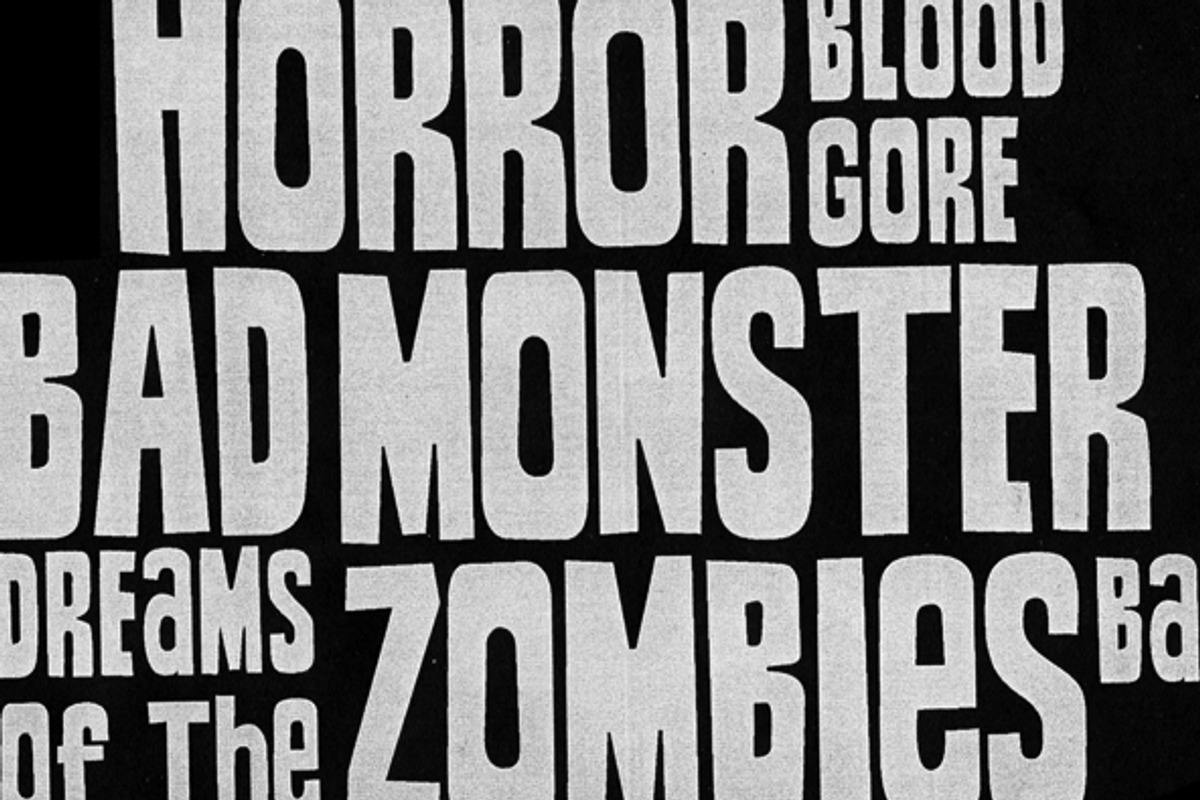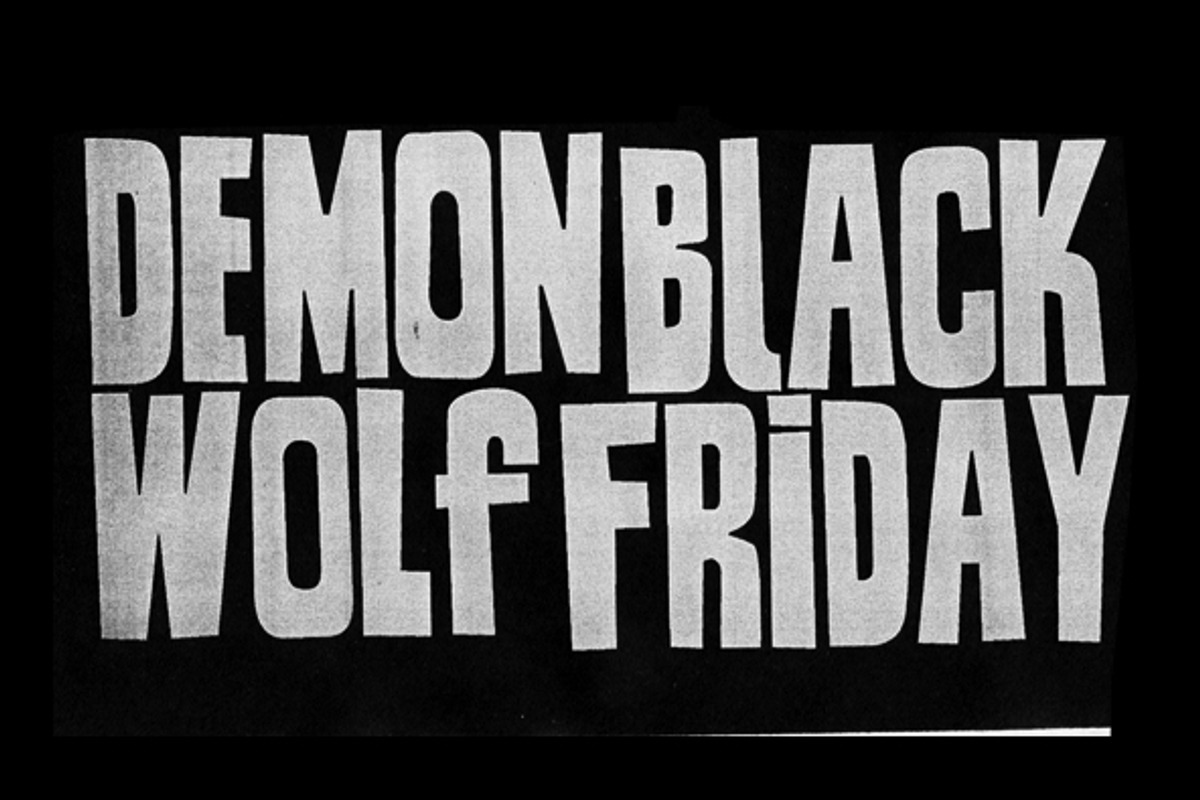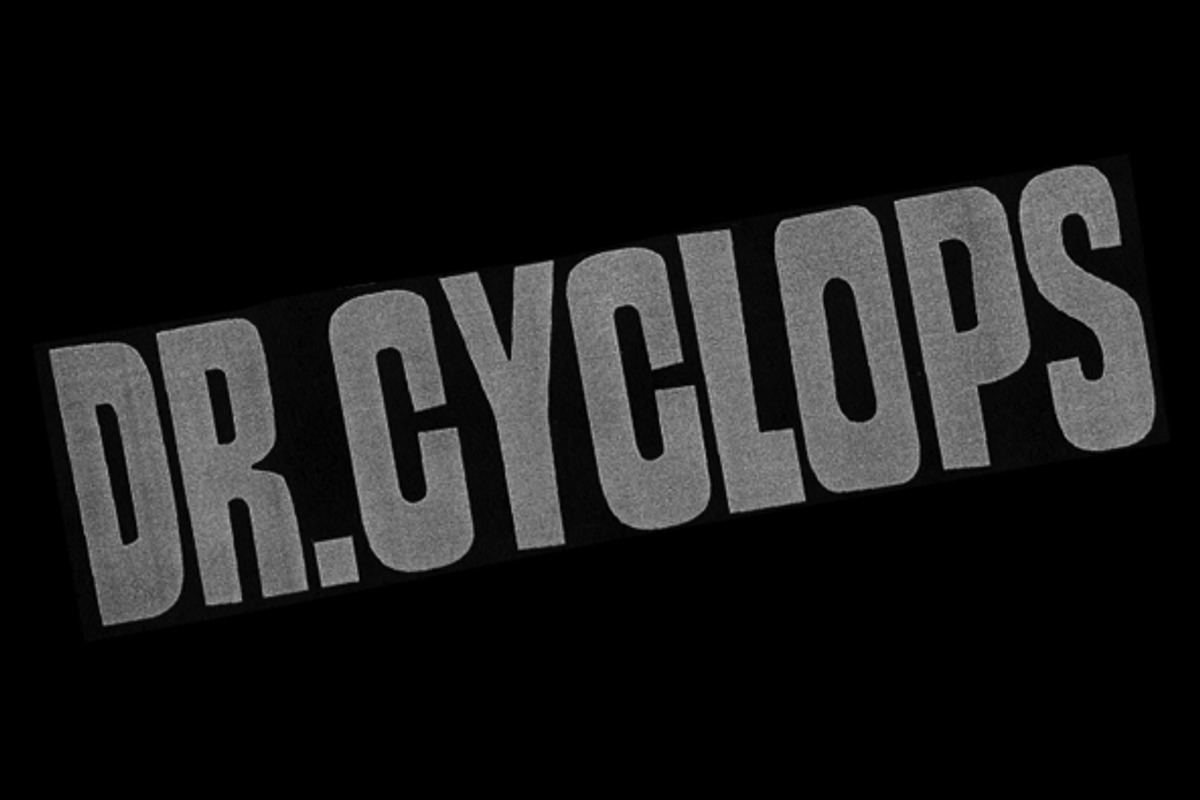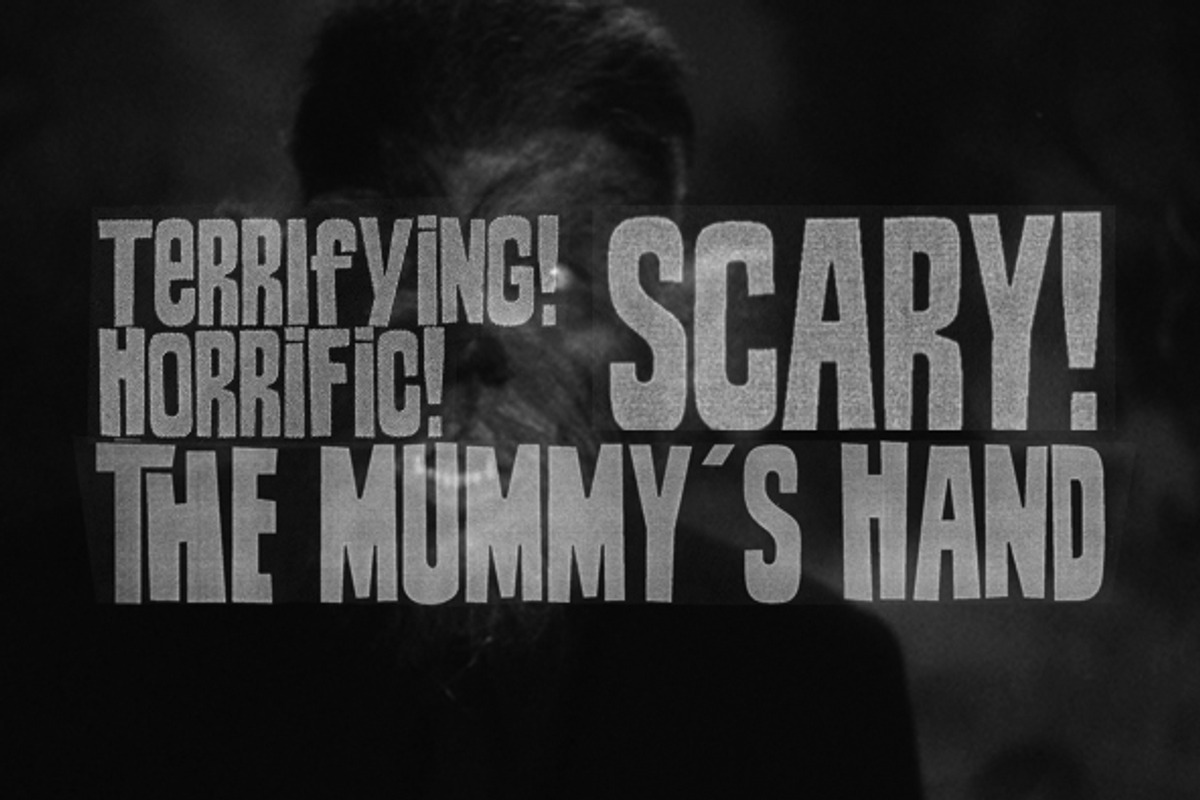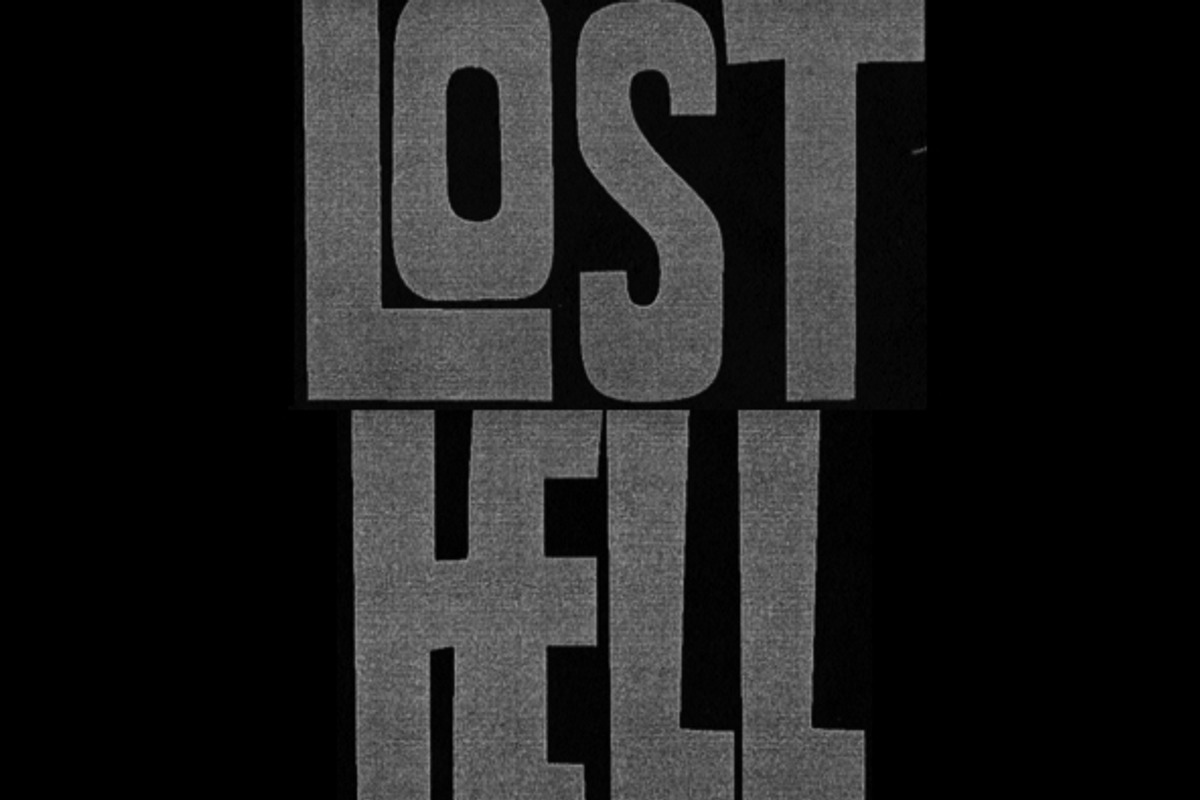
TOMO Zomba
TOMO Zomba by TOMO Fonts is a font selected for branding, posters, packaging, typography.
- Tomo's new typeface, carefully hand crafted with different letter shapes on upper and lowercase slots although being an all caps font.
Why TOMO Zomba is worth a look
TOMO Zomba by TOMO Fonts fits naturally into Branding, posters, packaging, typography.